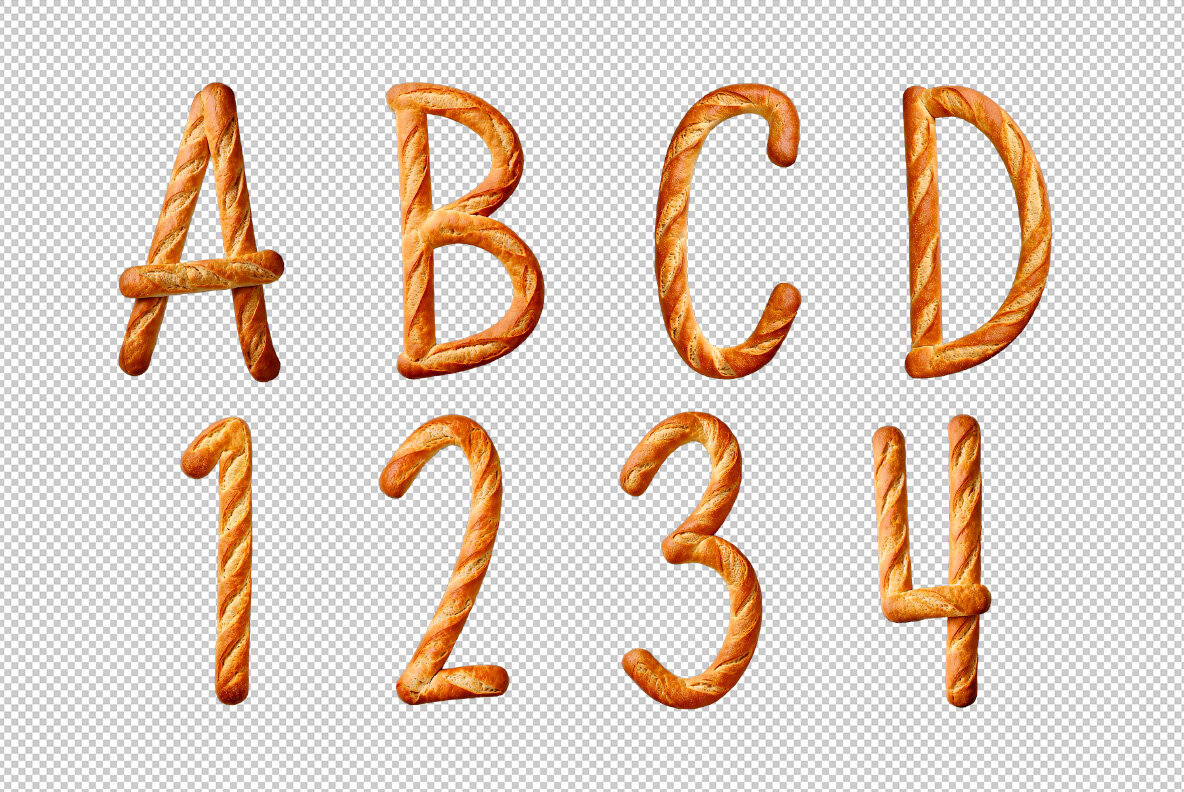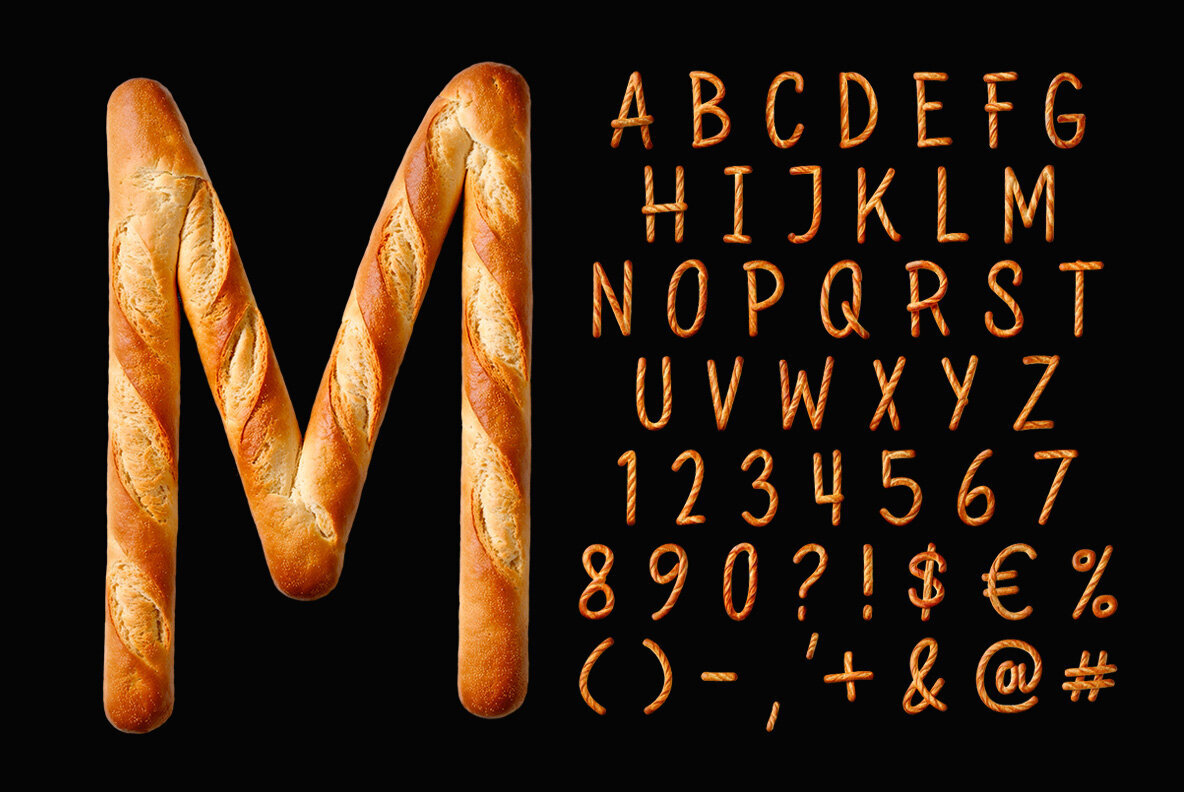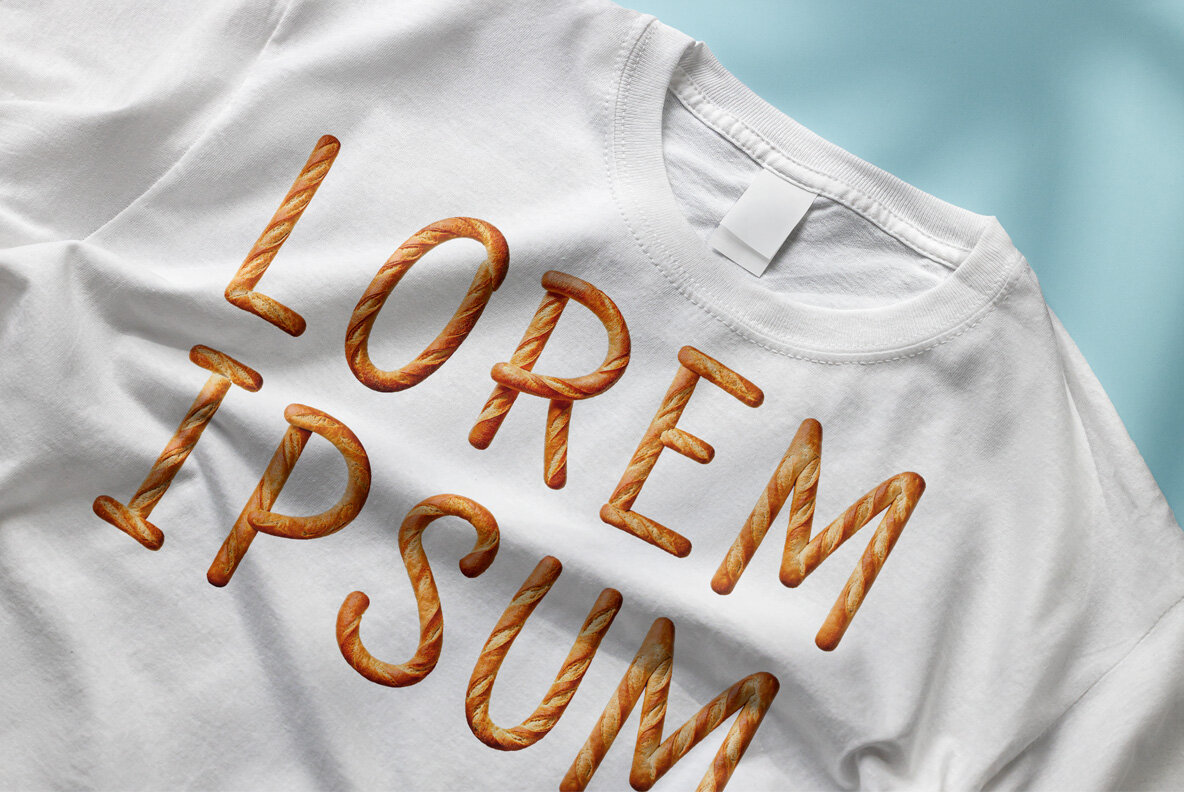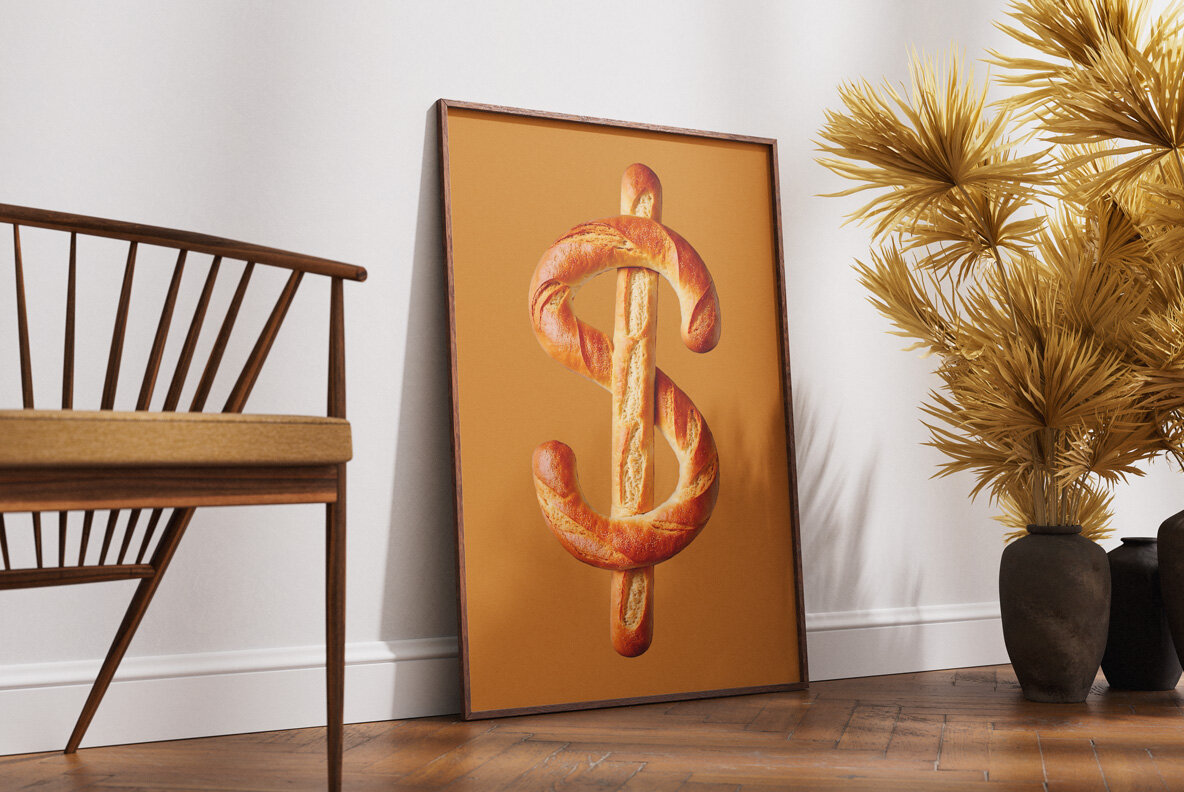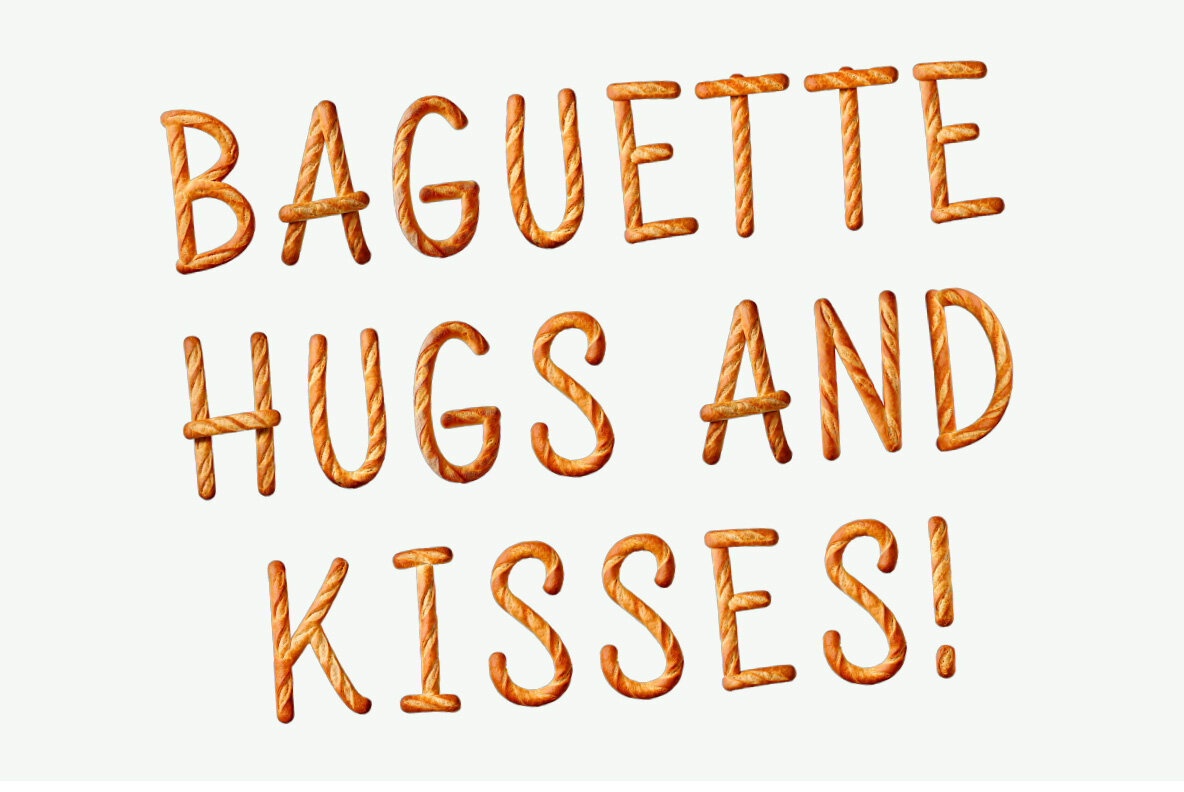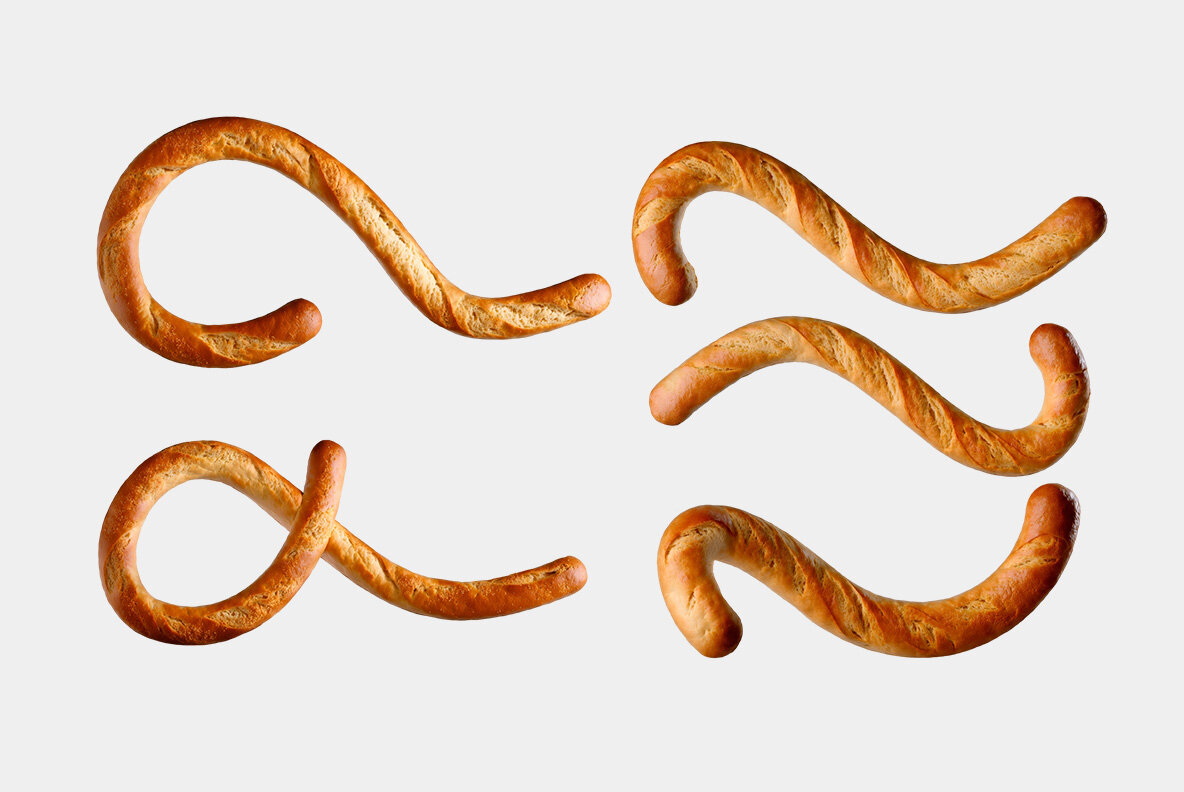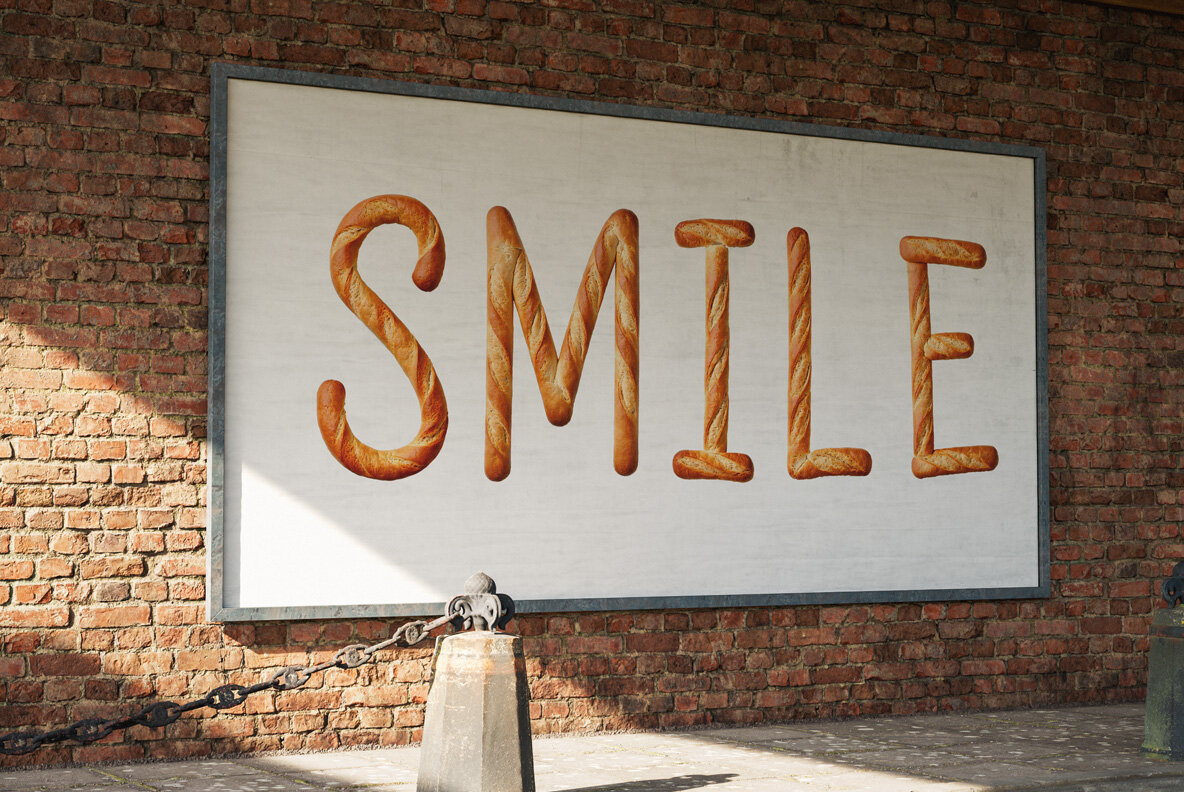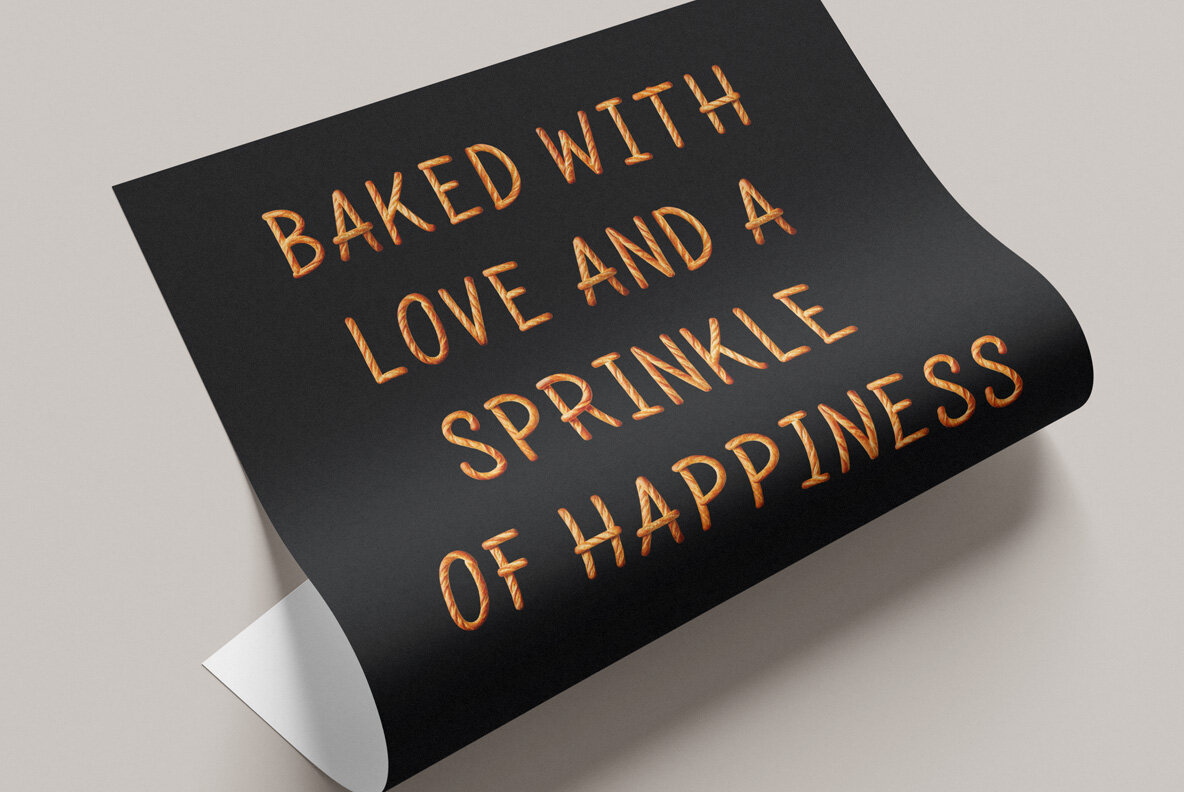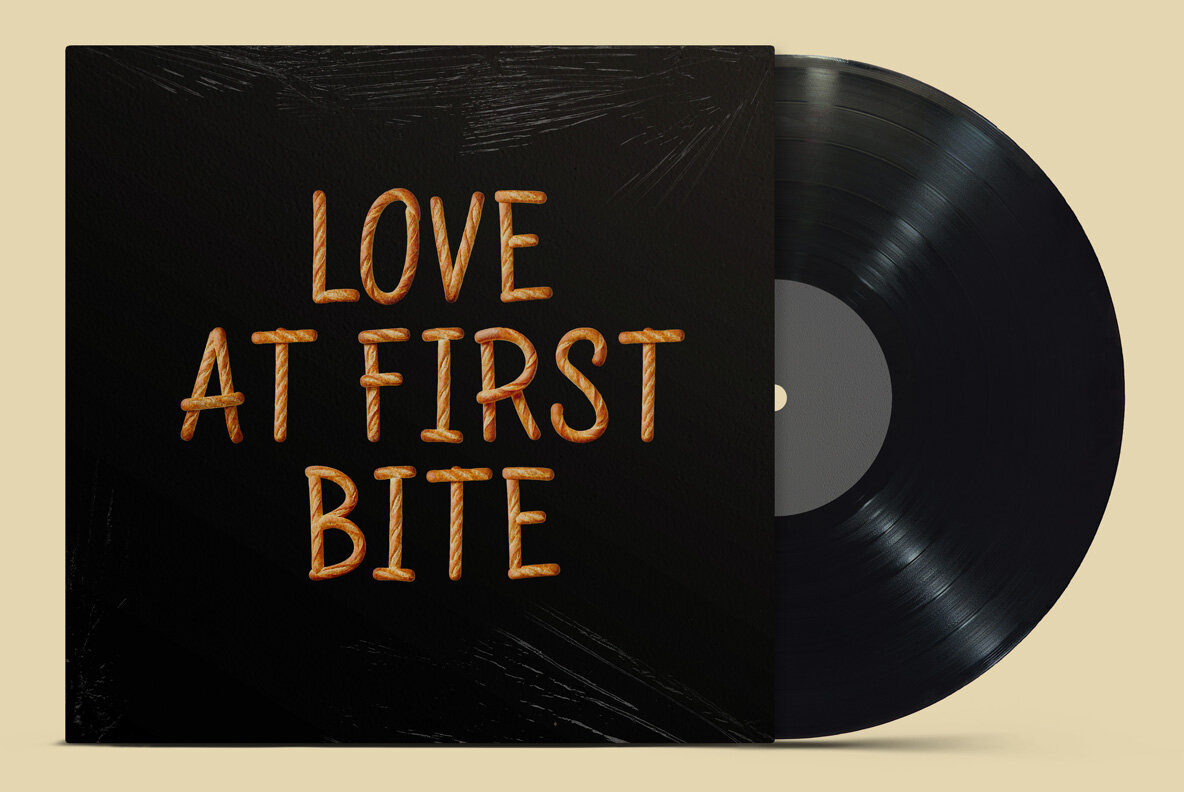
Introducing a typeface inspired by the quintessential French bakery delight, this SVG font mimics the rustic essence of a freshly baked baguette. Each character showcases soft, rounded edges with warm golden tones, making it an ideal choice for food brands, bakeries, and vintage-themed designs. Immerse your projects in the cozy ambiance of a Parisian boulangerie, capturing the aroma and look of freshly baked bread.